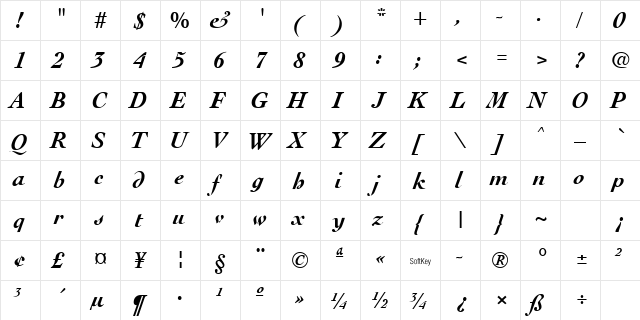
CLERGYA Regular
Design Context for CLERGYA Typeface
CLERGYA offers clean, dependable letterforms without strong stylistic allegiance, making it a practical choice for designers who need flexibility.
Pro Tip: Pair CLERGYA with a font of contrasting weight or personality to build a more expressive typographic hierarchy.